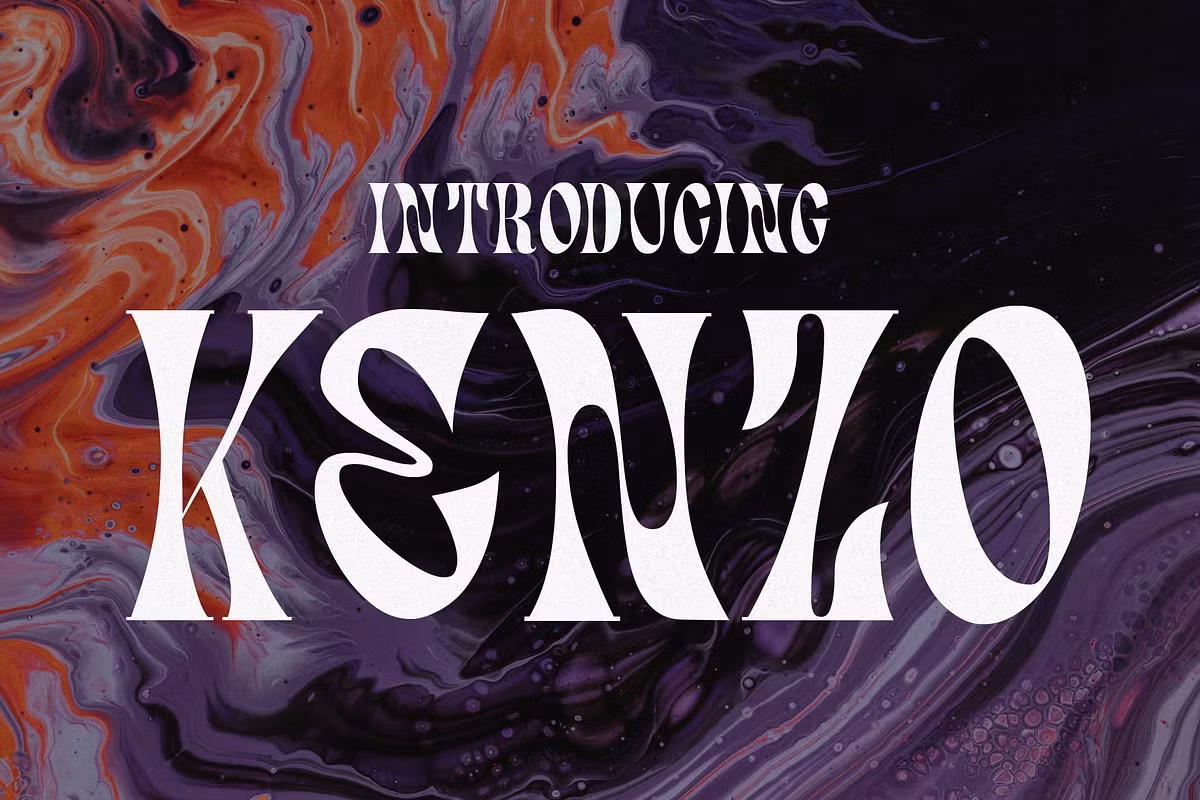
The flowing and bold design of Kenzo evokes the spirit of the psychedelic era while maintaining modern appeal, making it ideal for projects in the music, fashion, and creative industries. Whether you're creating a psychedelic poster, designing a logo with a bold statement, or working on a vintage-inspired brand, this font will give your typography a distinctive, attention-grabbing look.